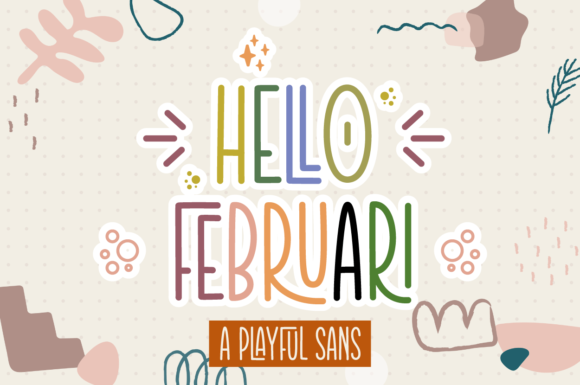
Embark on a captivating typographic journey with Hello Februari, a display font that exudes playfulness, elegance, and a touch of intrigue. This font, crafted by the skilled hands of Soegih Artwork, is a visual masterpiece designed to elevate your creative projects to new heights.
Dive into a world of endless possibilities, where Hello Februari's svelte and graceful lines dance across your designs, weaving tales of joy and enchantment. Its innate versatility allows it to effortlessly adapt to a kaleidoscope of contexts, seamlessly blending with your artistic vision.
With Hello Februari, the boundaries of creativity dissolve, making way for boundless expression. Its PUA encoding unlocks a treasure trove of glyphs and swashes, empowering you to unleash your imagination and weave intricate typographic tapestries.
Unleash the boundless potential of Hello Februari and embark on a transformative design odyssey. Let its playful spirit ignite your creativity, its elegance captivate your audience, and its versatility redefine the limits of your artistic expression.